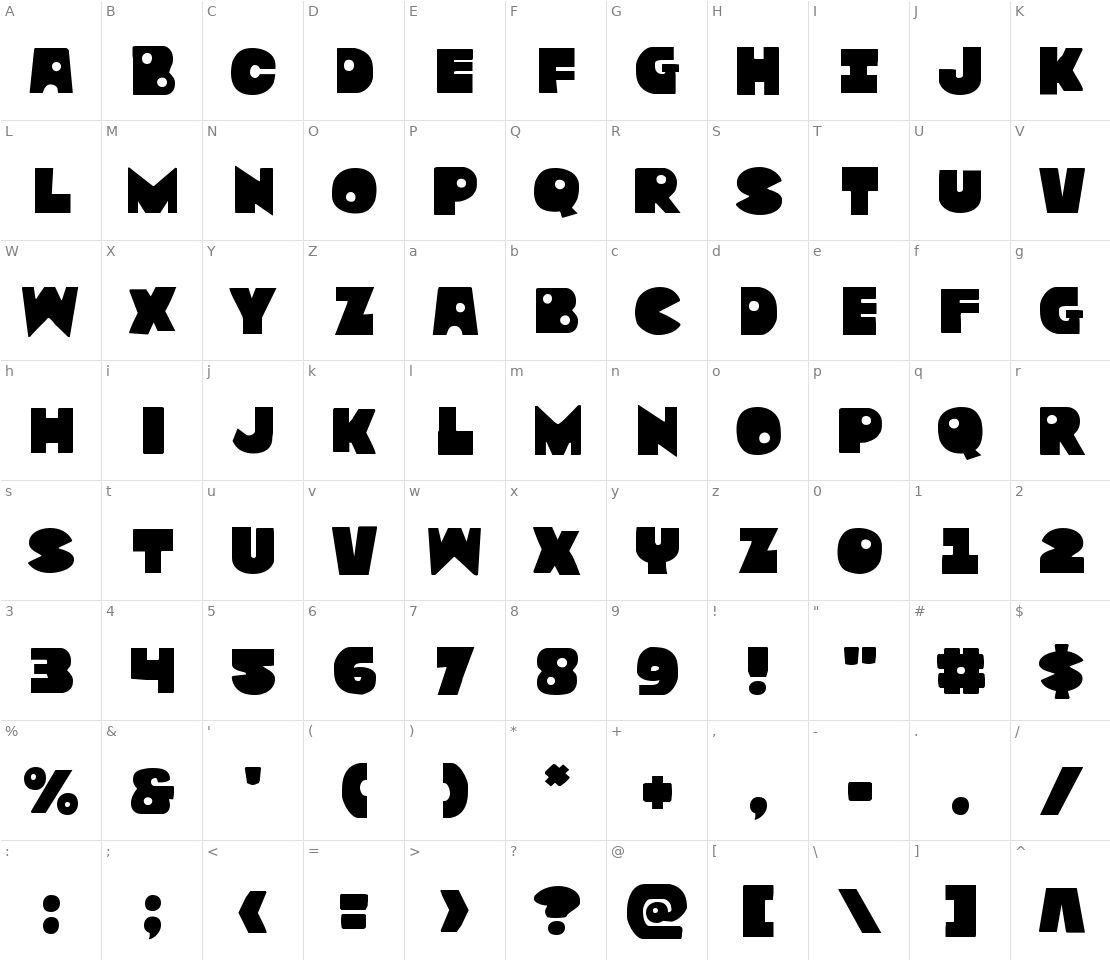
Zounderkite
Zounderkite is a chunky, heavyweight display face from Iconian Fonts with an oddball personality baked into every letterform. The extra-bold strokes and quirky proportions give it a playful, slightly absurd energy that works well on posters, headlines, and anywhere type needs to grab attention without being serious about it.